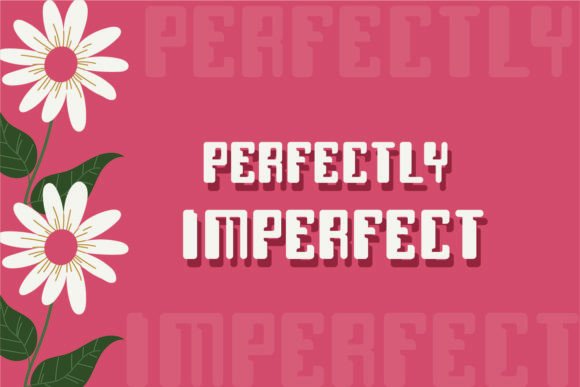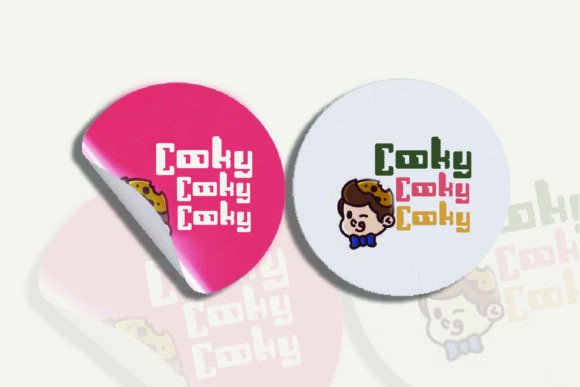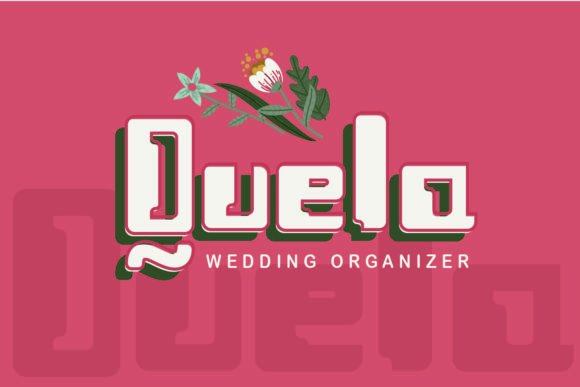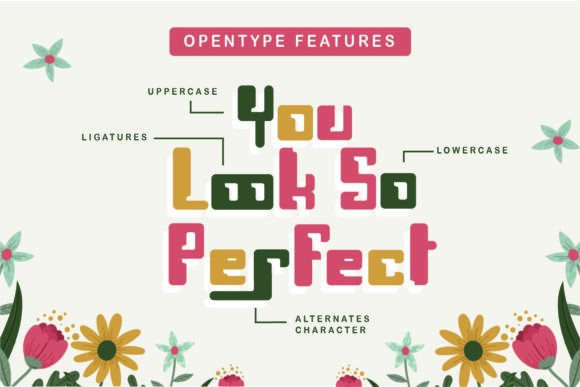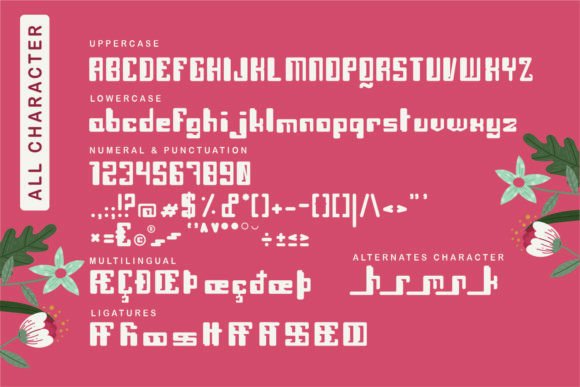
Introducing Chirpy Font: The Ultimate Modern Display Font for Creative Projects
Are you tired of using the same old fonts for your creative projects? Look no further! Chirpy Font is here to revolutionize the way you design your invitations, greeting cards, branding materials, business cards, quotes, posters, and more. This modern and unique display font is packed with a youthful vibe that’s sure to capture the attention of your audience.
What Makes Chirpy Font So Special?
Chirpy Font is a carefully crafted display font that’s designed to add a touch of playfulness and sophistication to any design project. Its modern and unique style makes it perfect for designers and crafters who want to create something fresh and exciting. Whether you’re working on a wedding invitation, a business card, or a poster, Chirpy Font is the perfect choice.
Key Features of Chirpy Font
- Modern and Unique Style: Chirpy Font boasts a modern and unique style that’s sure to make your designs stand out from the crowd.
- Youthful Vibe: This font is packed with a youthful energy that’s perfect for designs that require a playful and vibrant feel.
- Versatile: Chirpy Font can be used for a wide range of design projects, including invitations, greeting cards, branding materials, business cards, quotes, posters, and more.
- Easy to Read: Despite its playful style, Chirpy Font is easy to read and understand, making it perfect for designs that require a clear and concise message.
How to Use Chirpy Font in Your Design Projects
Using Chirpy Font in your design projects is easy! Here are a few ideas to get you started:
- Wedding Invitations: Add a touch of playfulness and romance to your wedding invitations with Chirpy Font.
- Business Cards: Make a statement with your business cards by using Chirpy Font to showcase your brand’s personality.
- Posters: Create eye-catching posters that grab attention with Chirpy Font’s bold and playful style.
- Greeting Cards: Add a personal touch to your greeting cards with Chirpy Font’s youthful and vibrant vibe.
Why Designers and Crafters Love Chirpy Font
Designers and crafters love Chirpy Font for its versatility, uniqueness, and ease of use. Here are a few reasons why:
- Time-Saving: Chirpy Font is easy to use and doesn’t require a lot of design experience, saving you time and effort.
- Customizable: You can customize Chirpy Font to fit your design needs, making it perfect for a wide range of projects.
- High-Quality: Chirpy Font is a high-quality font that’s designed to produce stunning results.
Chirpy Font is a modern and unique display font with a youthful vibe. It will look so beautiful on invitations, greeting cards, branding materials, business cards, quotes, posters, and more!